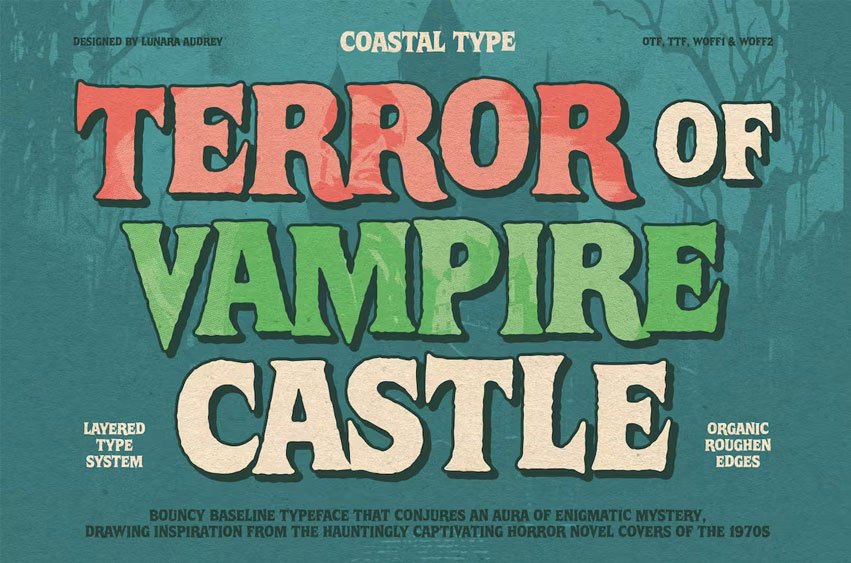
Terror of Vampire Castle Font Revealing the Forbidden Secrets: Presenting ‘Terror of Vampire Castle,’ the Ultimate Bouncy Baseline & Layered Typeface Crafted to Summon an Aura of Mysterious Dread, Ignited by the Timeless Allure of Vintage 1970s Horror Novel Covers. Your Perfect Choice for Haunting Horror Novel Titles.